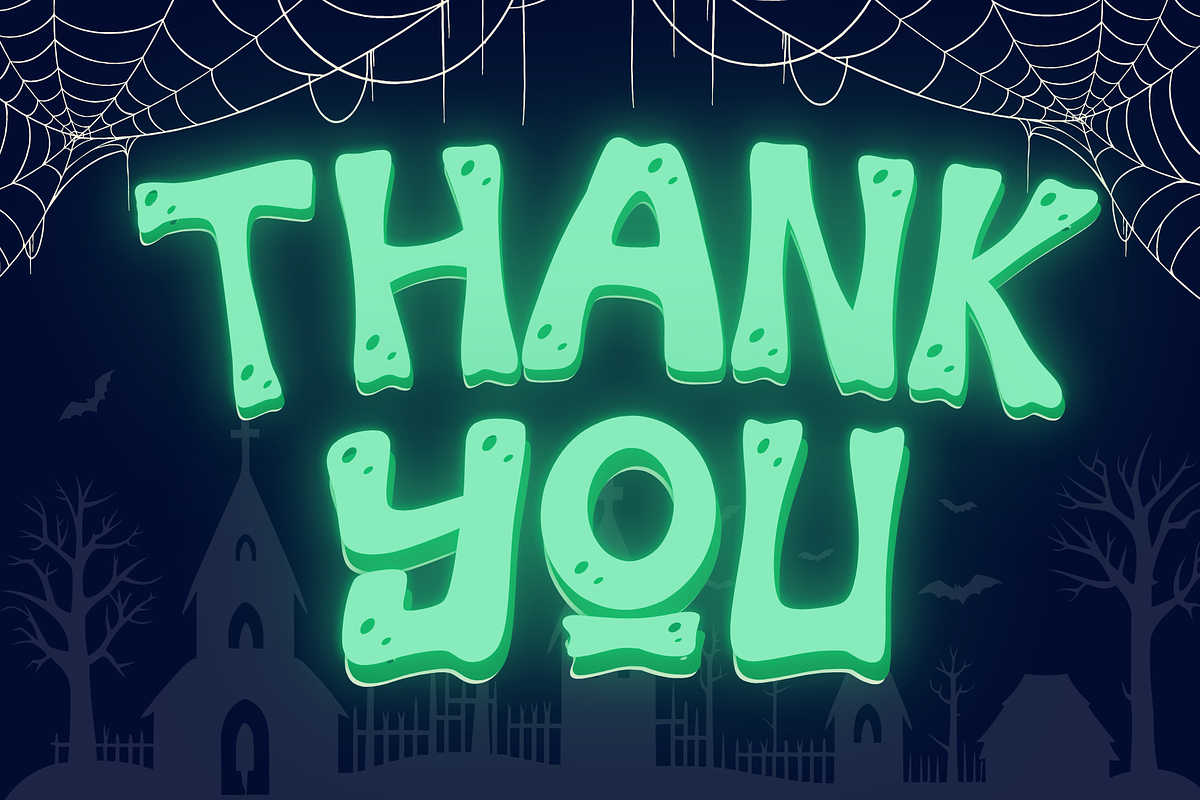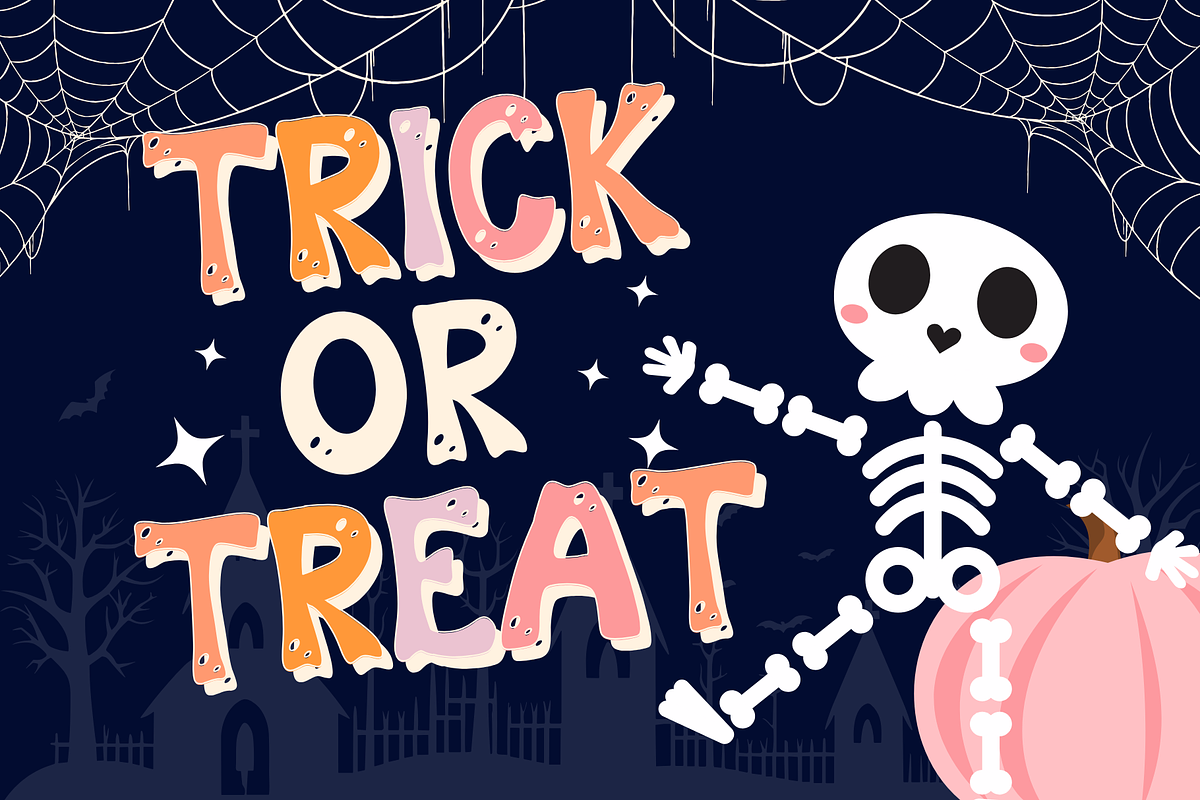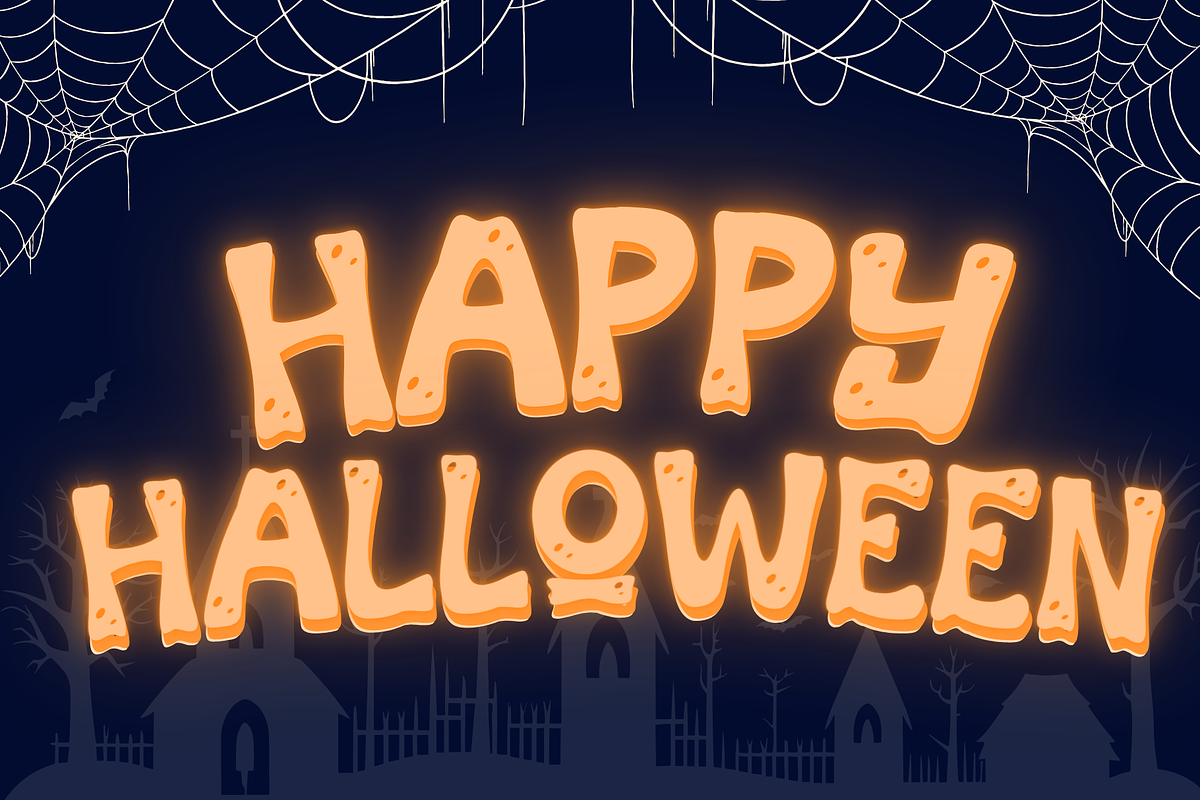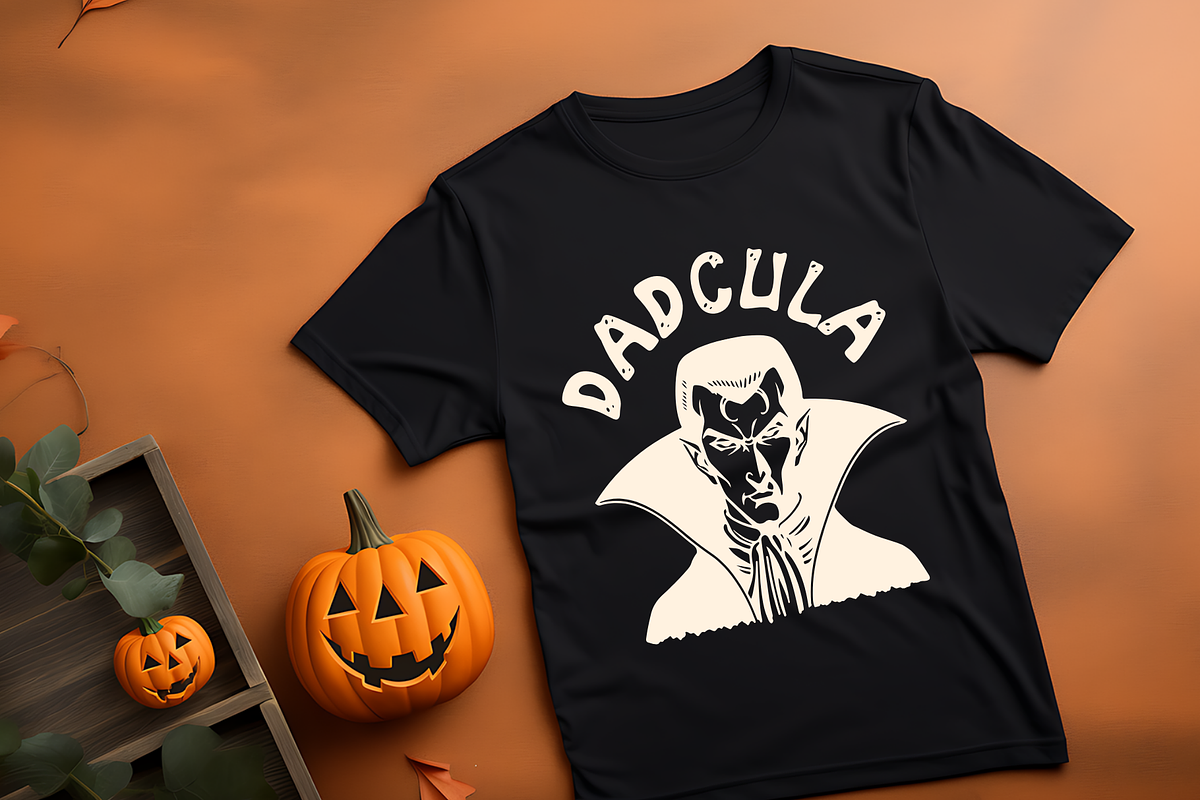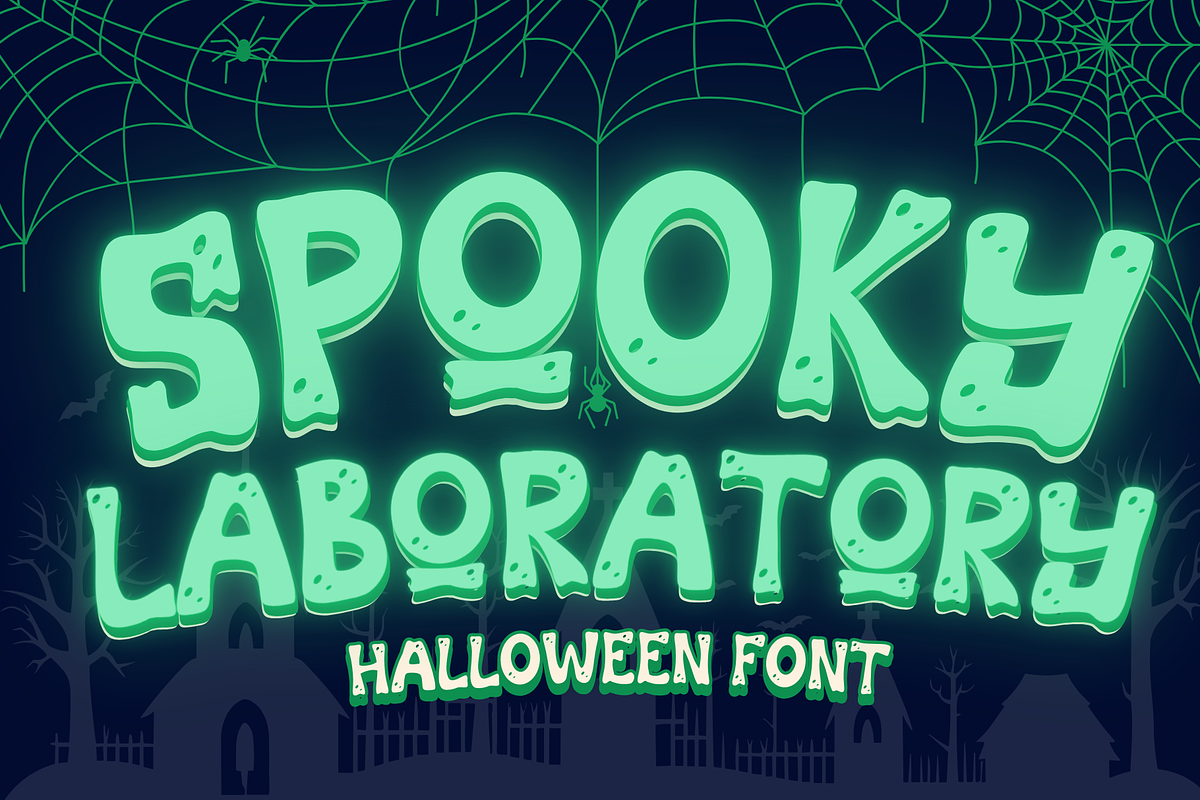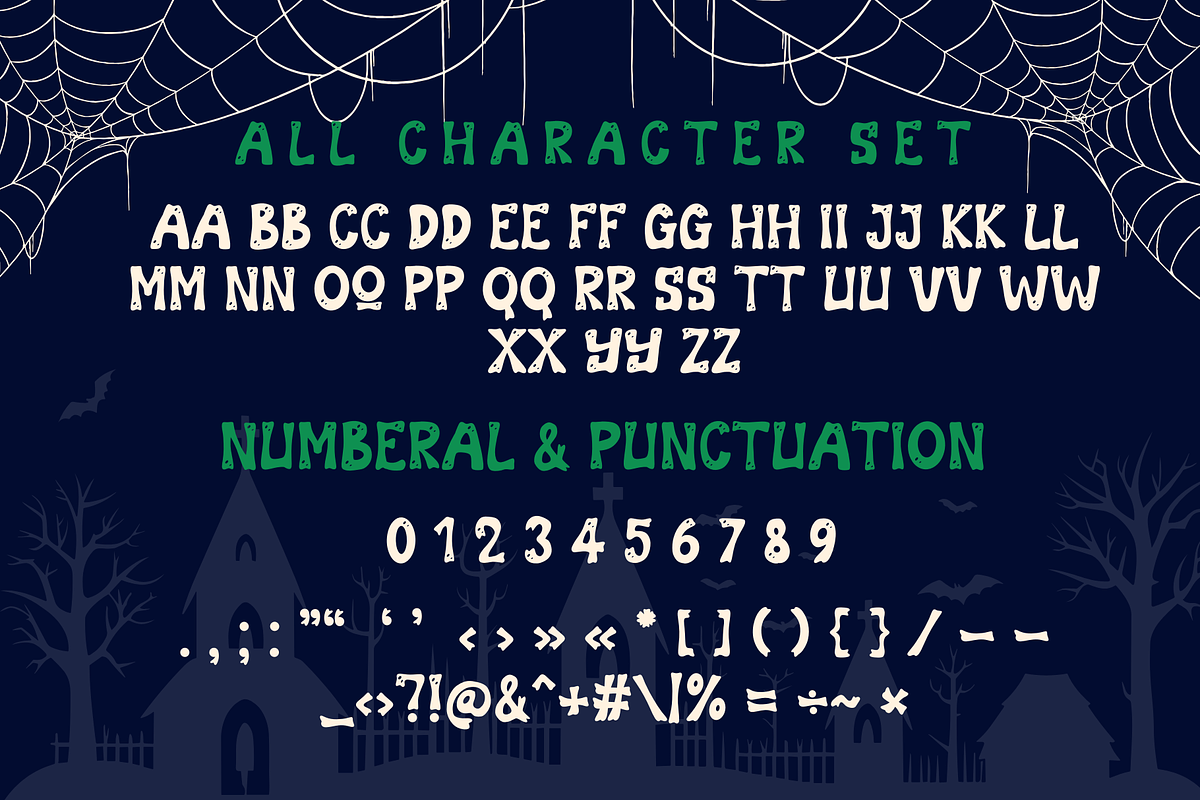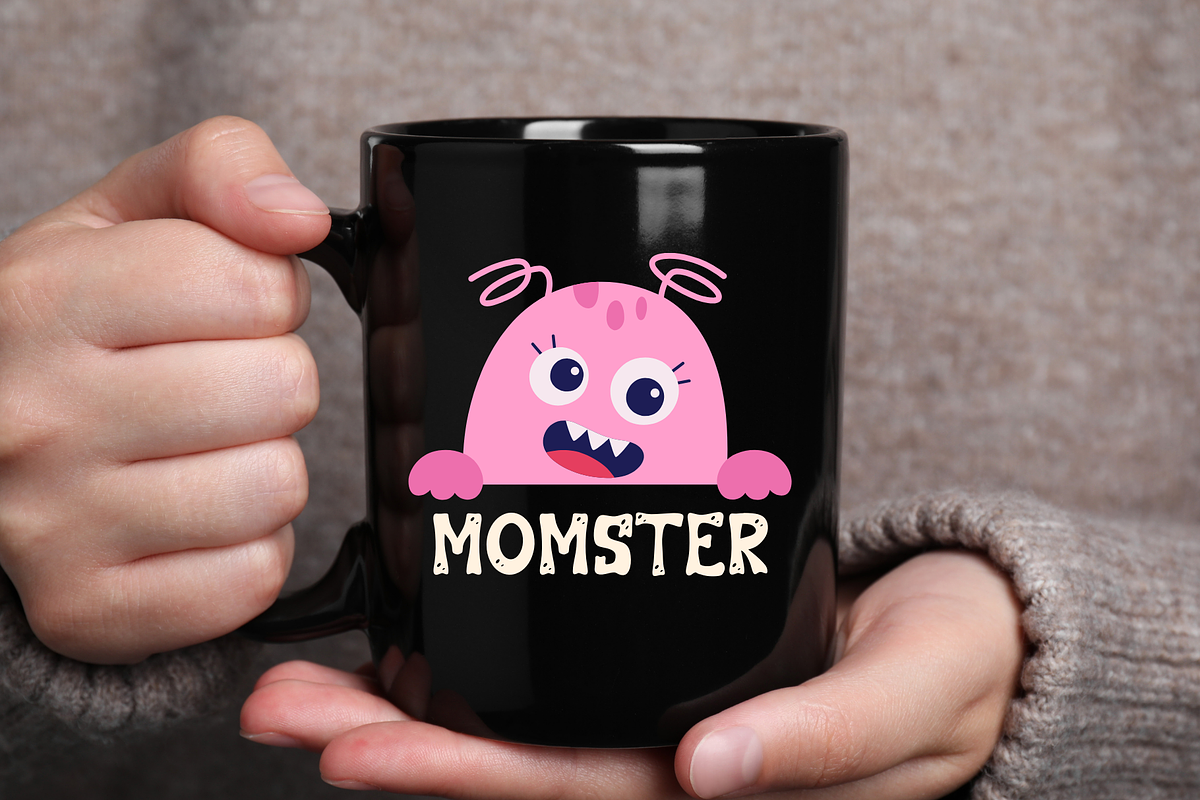
Spooky Laboratory is Halloween font
Spooky Laboratory is a Halloween decorative font. It embodies playfulness and authenticity and is the perfect choice for all your favorite projects such as blog posts, logos, branding, ads, invitations, greeting cards, planners, photo albums, decorations, and more. Add it to any of your designs, and enjoy the results!